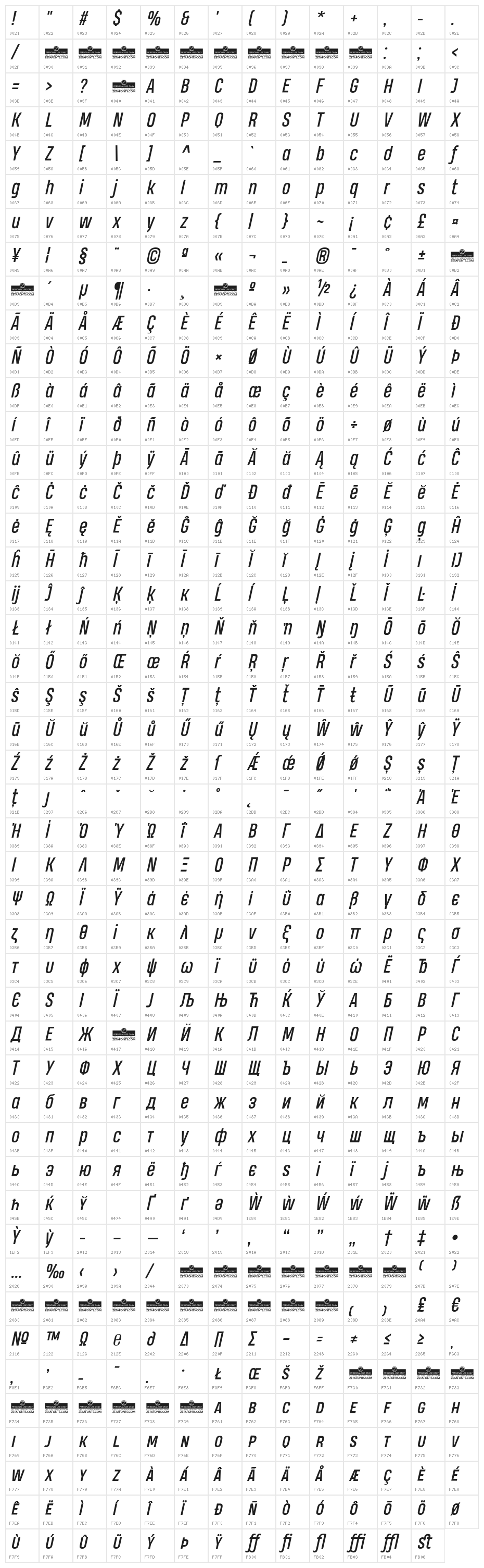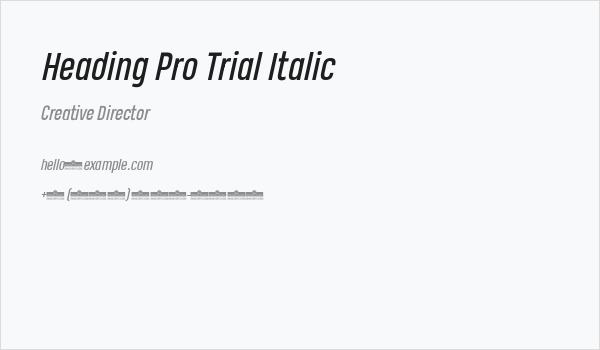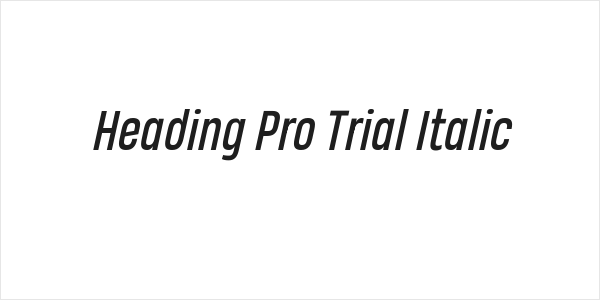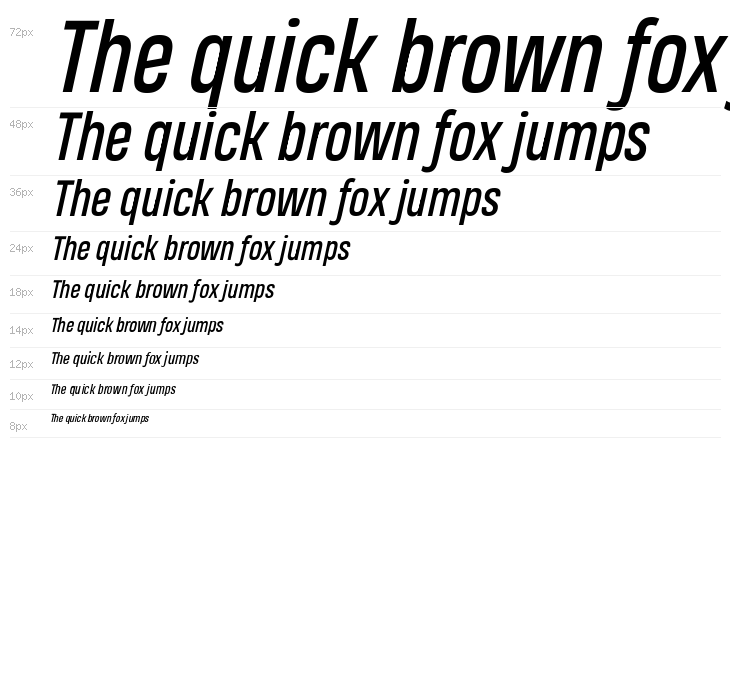
Heading Pro Trial Italic Font
Heading Pro Trial Italic Description
This font features a sleek and modern design with a distinct italic slant, giving it a dynamic and forward-moving appearance. The characters are tall and narrow, contributing to a condensed look that maximizes space efficiency. The strokes are consistent in weight, providing a uniform appearance across all characters. The font maintains a clean and professional aesthetic, making it suitable for a variety of applications. The uppercase and lowercase letters are well-balanced, and the numerals are clear and legible. Special characters are included, ensuring versatility in usage.
| Use Case | Headlines, Logos, Advertising |
| Proposed Projects | Ideal for use in headlines, advertising, branding, and editorial design where a modern and dynamic look is desired. |